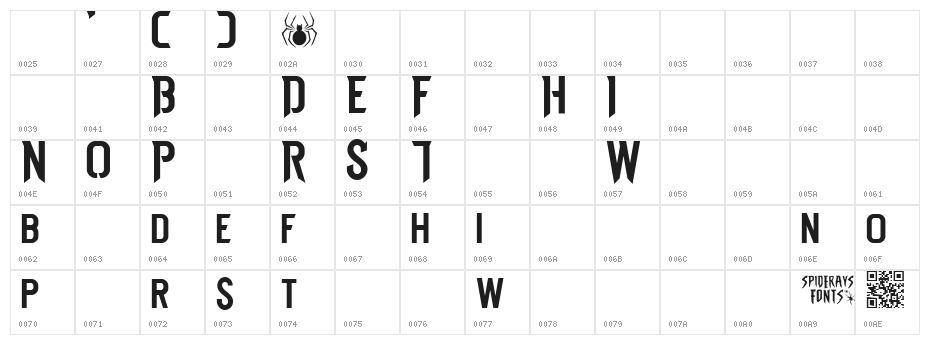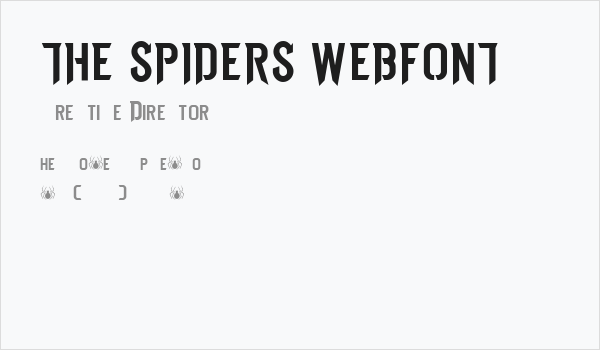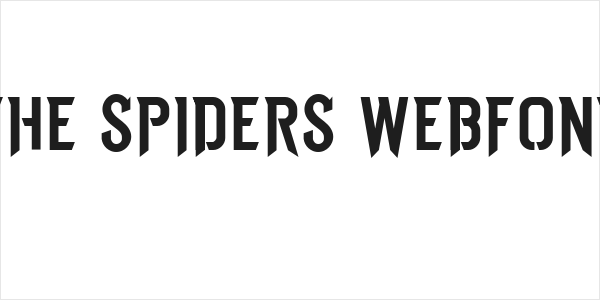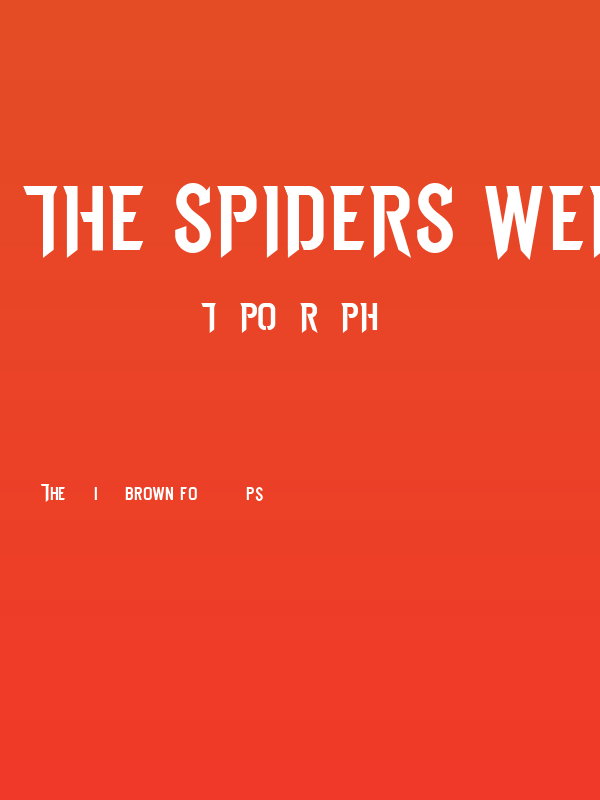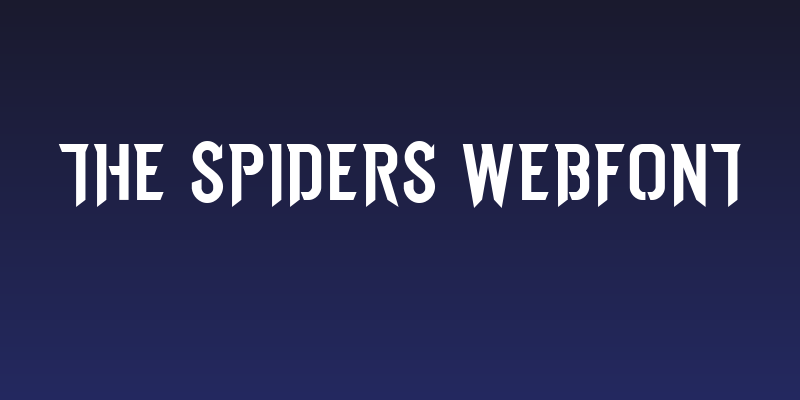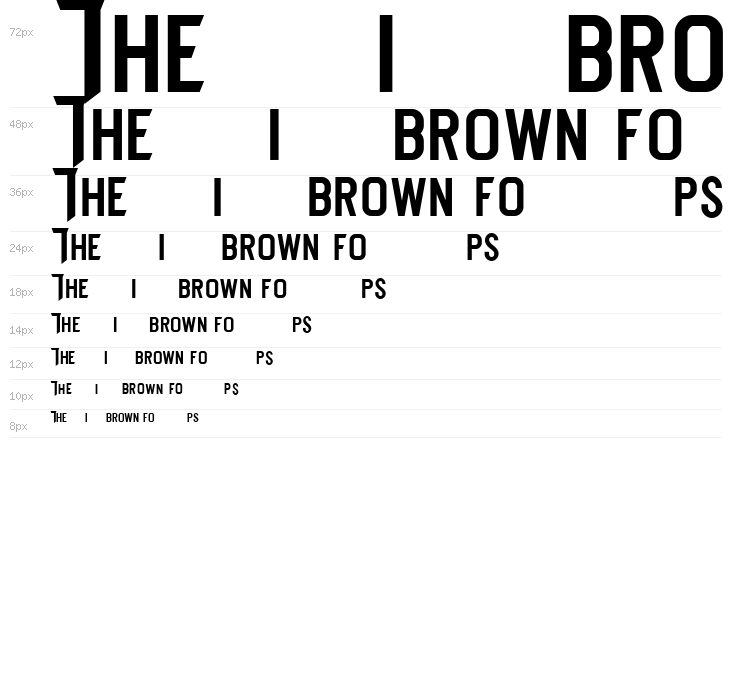
THE SPIDERS WEBFONT Font
THE SPIDERS WEBFONT Description
This font features a bold and angular design, reminiscent of a spider's web with its sharp edges and geometric shapes. The characters are distinct and have a modern, edgy appearance, making them stand out with a unique flair. The uppercase letters are particularly striking, with a consistent height and width that gives a uniform look. The special characters, including a spider symbol, add a thematic touch that enhances the font's overall style. The font's design is ideal for projects that require a bold and distinctive aesthetic, such as Halloween-themed graphics or branding that seeks to convey a sense of mystery and intrigue.
| Proposed Projects | Ideal for Halloween graphics, mystery-themed branding, or any project needing a bold, distinctive look. |